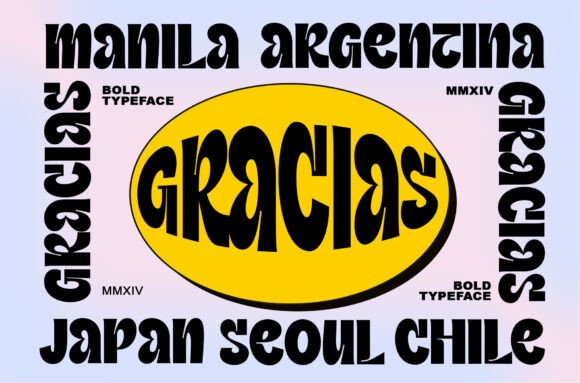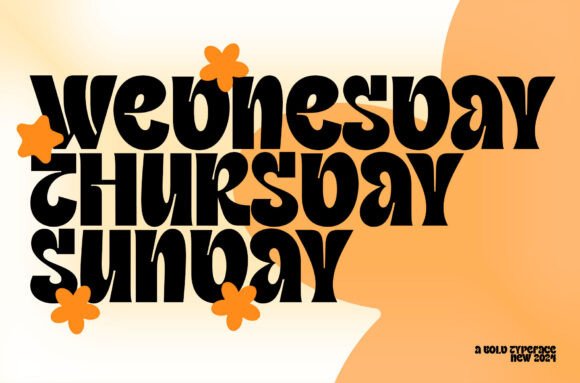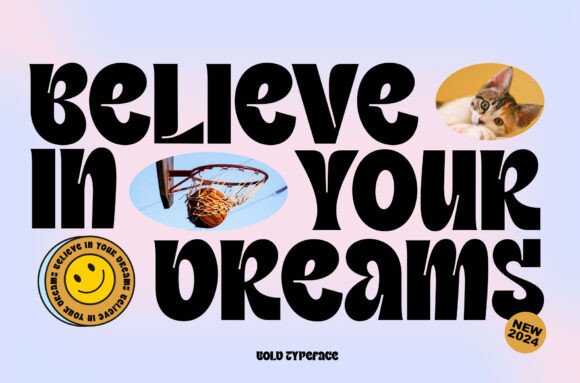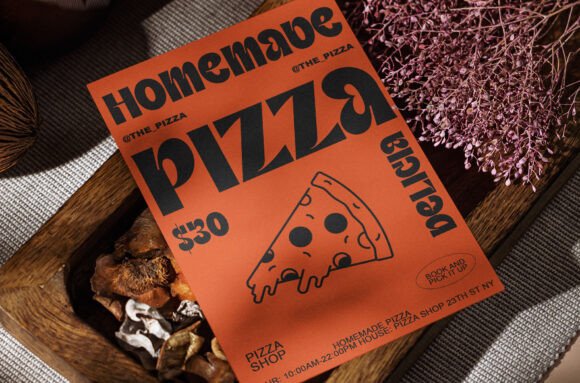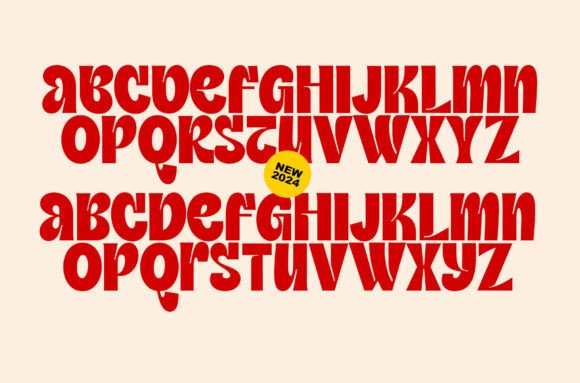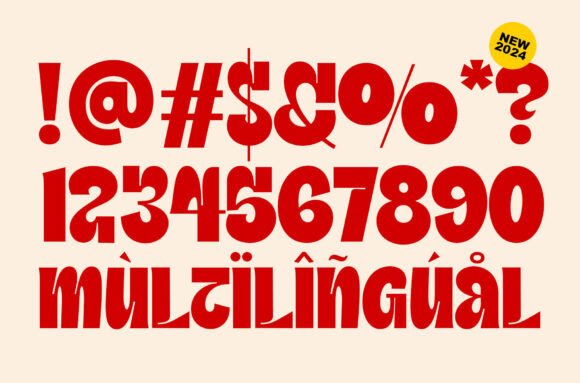
Introduction to Kick Avenue Font Font
Fonts play a crucial role in design, and the Kick Avenue Font font is a typeface that brings both character and versatility to any project. Whether you’re working on a branding project, a website, or a print design, the Kick Avenue Font font offers a unique style that can elevate your work.
Kick Avenue is an incredibly unique display font.
Masterfully designed to become a true favorite, this font has the potential to bring each of your creative ideas to the highest level .
Key Features of Kick Avenue Font Font
Why Choose Kick Avenue Font Font?
The Kick Avenue Font font is more than just a typeface – it’s a design tool that helps you communicate your message with style and clarity. Its unique character set and versatile design make it suitable for a wide range of applications, from elegant invitations to bold headlines.
With its carefully crafted letterforms and balanced proportions, the Kick Avenue Font font ensures readability and visual appeal across all mediums.
What makes Kick Avenue Font font special?
The Kick Avenue Font font stands out with its unique design, exceptional readability, and versatility across various design applications.